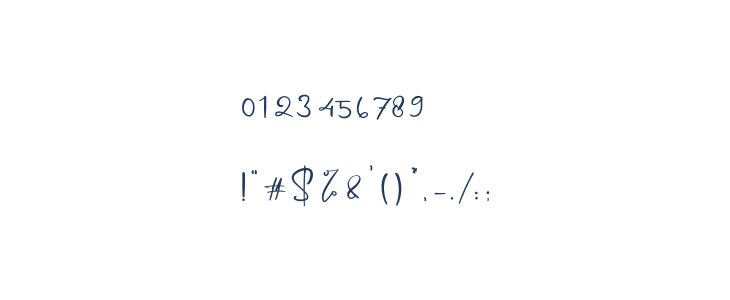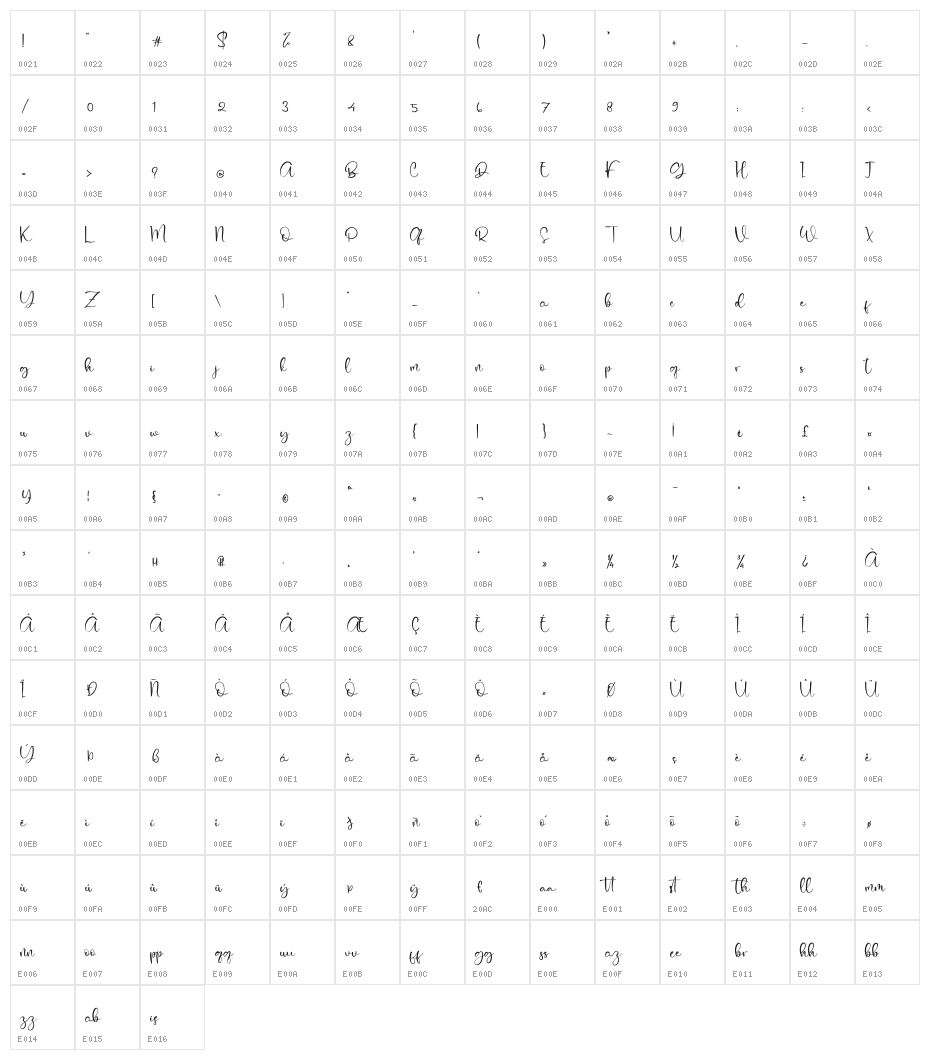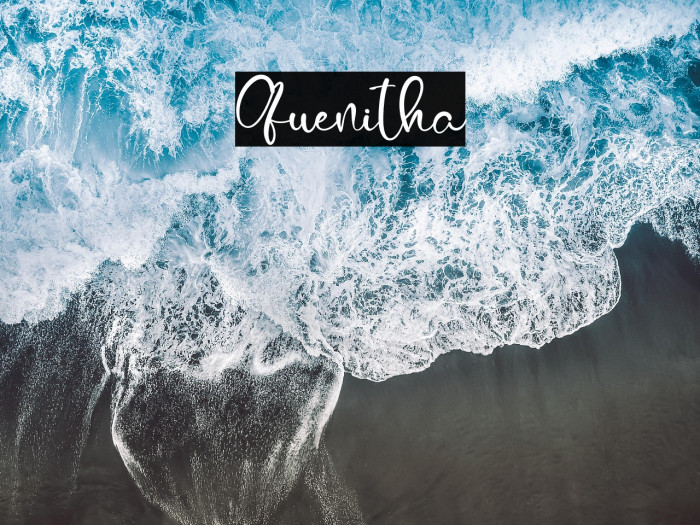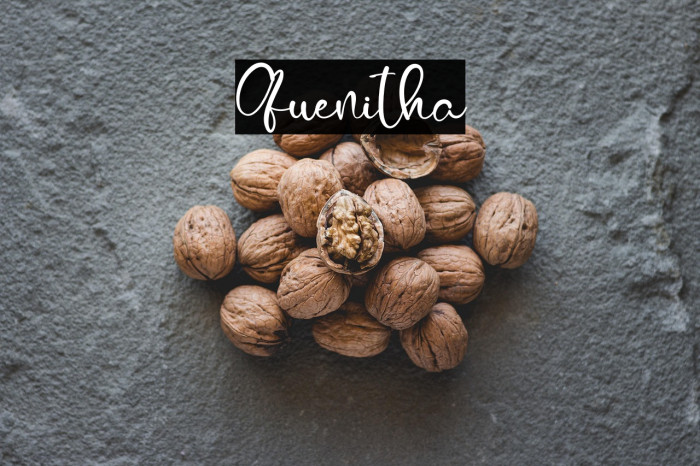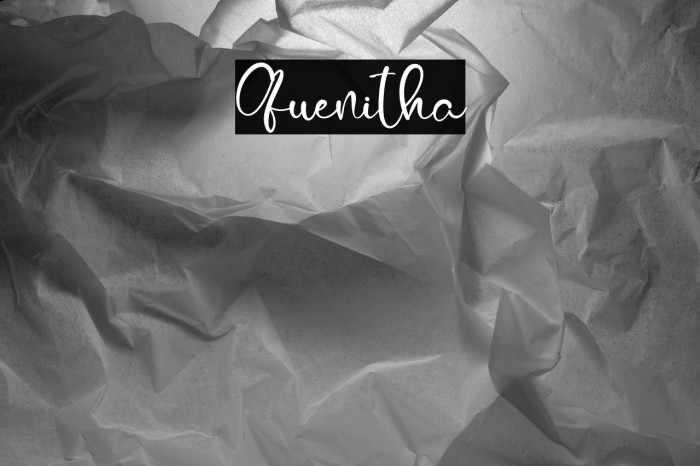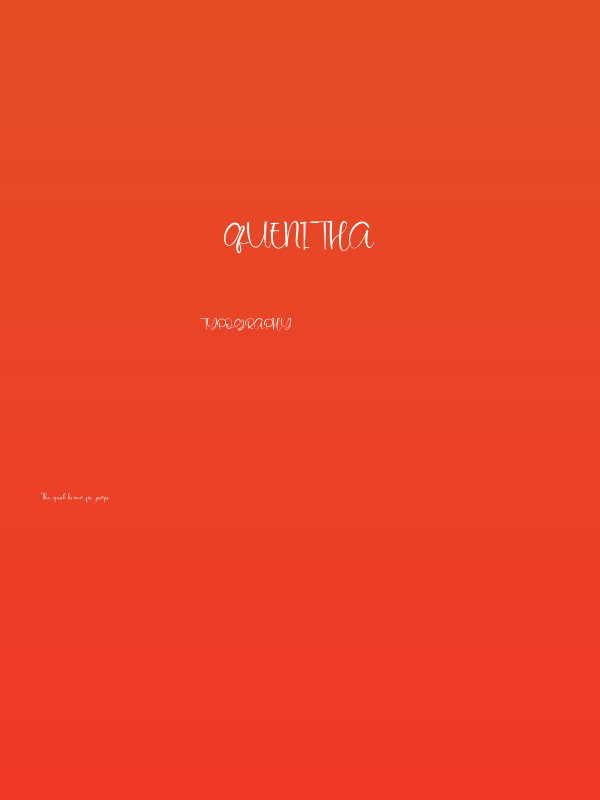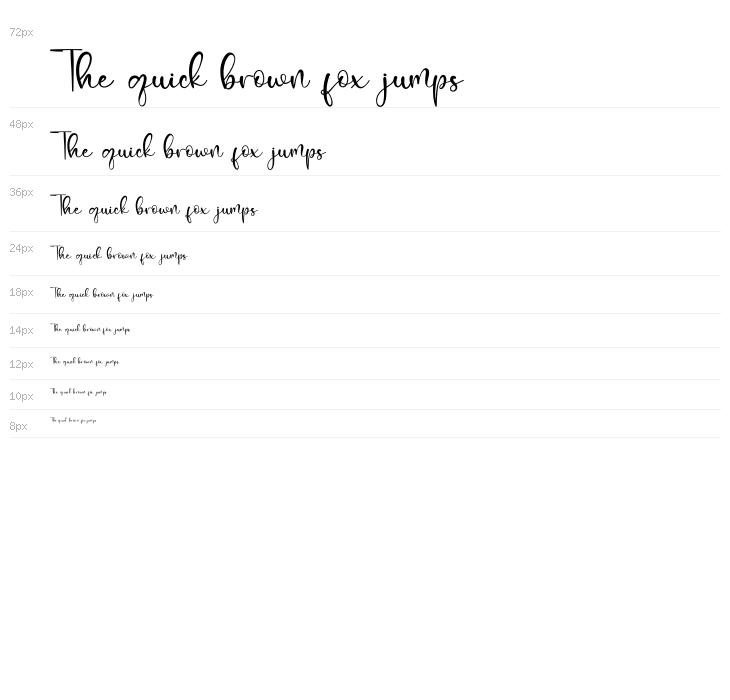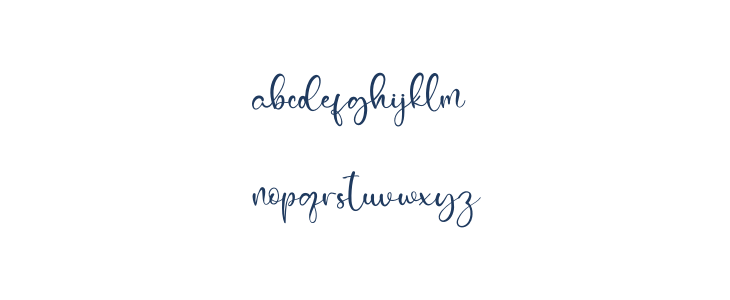
Quenitha Font
Quenitha Description
This font exudes a charming and elegant handwritten style, characterized by its flowing and interconnected letterforms. The uppercase letters are particularly ornate, with sweeping curves and loops that give a sense of movement and grace. The lowercase letters maintain a consistent style, with a slightly more restrained flourish, making them highly legible while still retaining a decorative flair. The numerals are designed to match the overall aesthetic, with a playful yet sophisticated appearance. Special characters are integrated seamlessly, enhancing the font's versatility for various design needs. This font is perfect for projects that require a personal touch, such as invitations, greeting cards, and branding materials.
| Overall Style | Elegant |
| Use Case | Headlines, Invitations, Branding |
| Proposed Projects | Ideal for wedding invitations, greeting cards, personal branding, and decorative signage. |